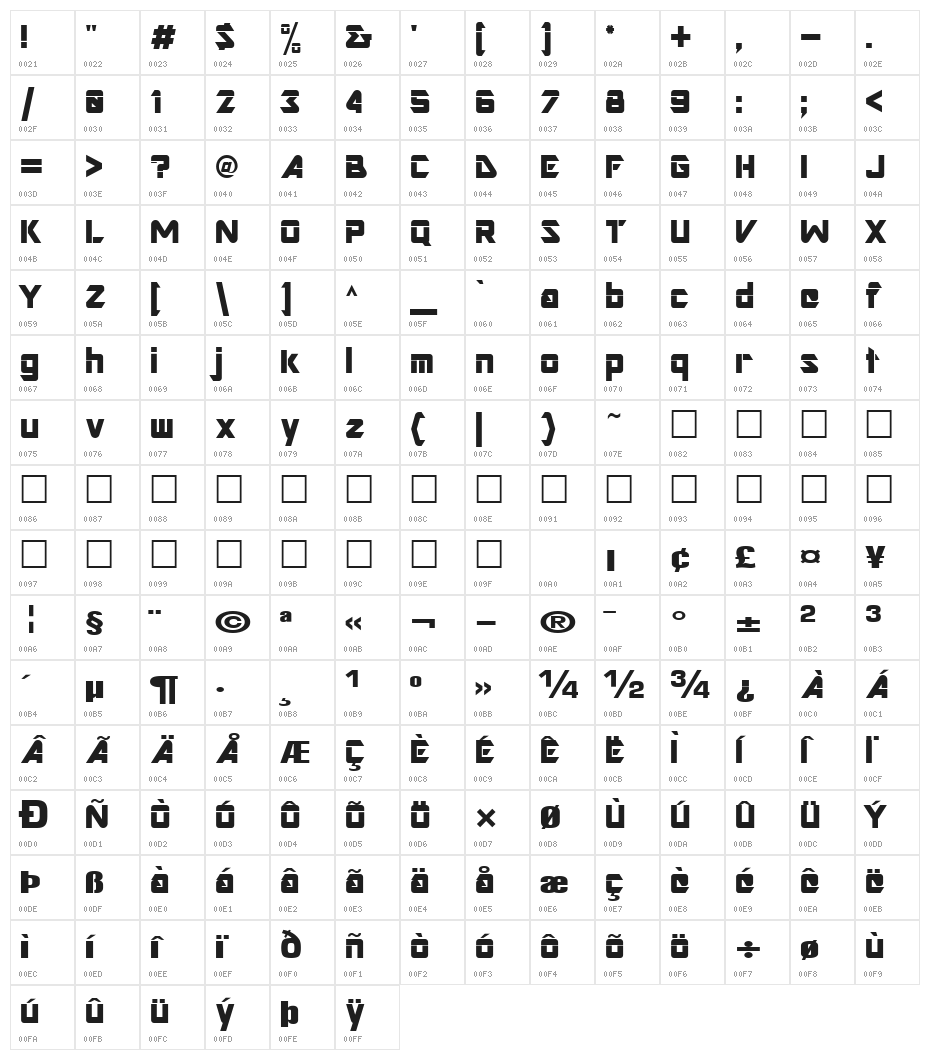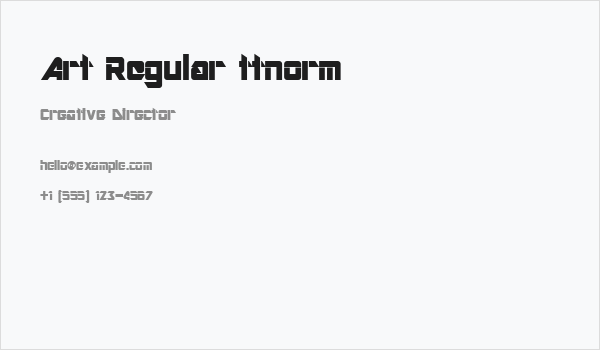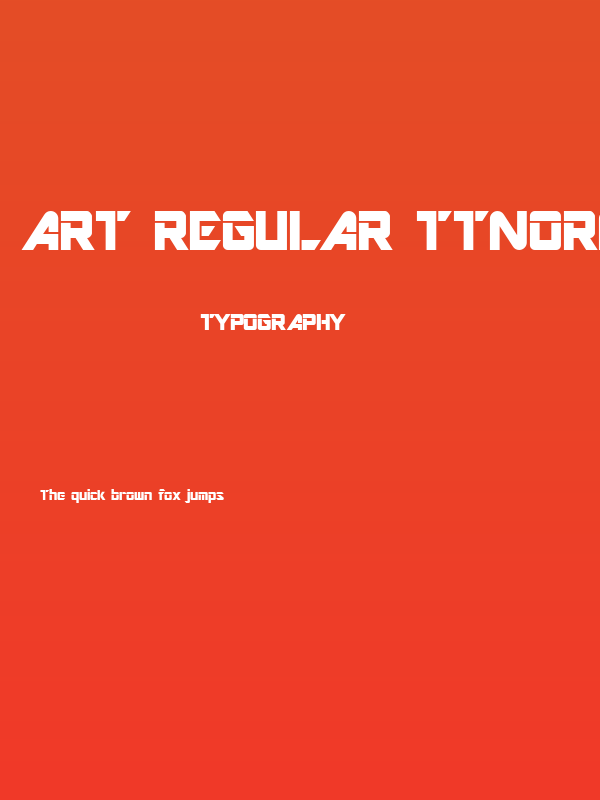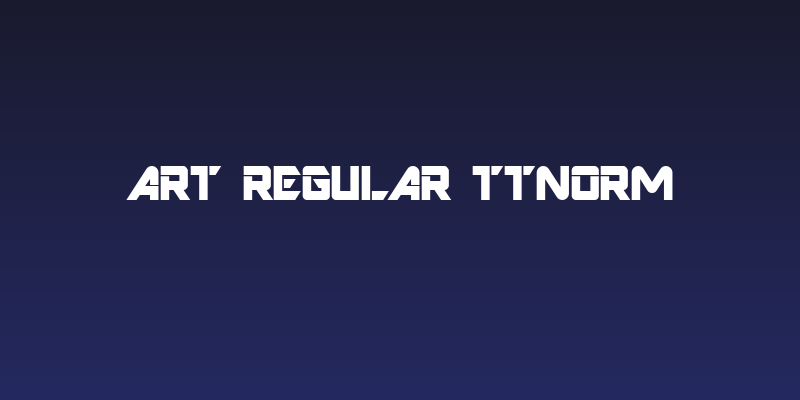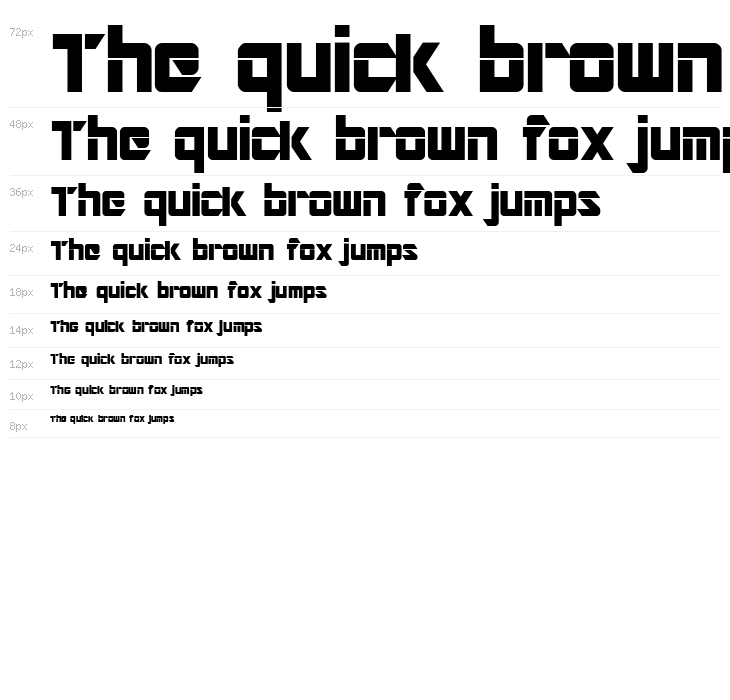
Art Regular ttnorm Font
Art Regular ttnorm Description
This font features a bold, geometric design with sharp angles and a futuristic aesthetic. The characters are constructed with a unique blend of straight lines and angular cuts, giving it a distinct, modern look. The uppercase and lowercase letters maintain a consistent style, with a strong emphasis on symmetry and uniformity. The numerals and special characters follow the same design principles, ensuring a cohesive appearance across all glyphs. This font's striking appearance makes it ideal for projects that require a bold statement.
| Proposed Projects | Ideal for branding, posters, video game graphics, and sci-fi themed projects. |